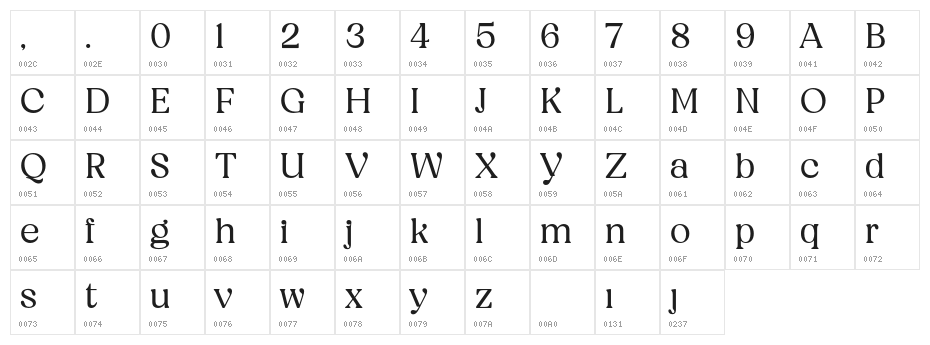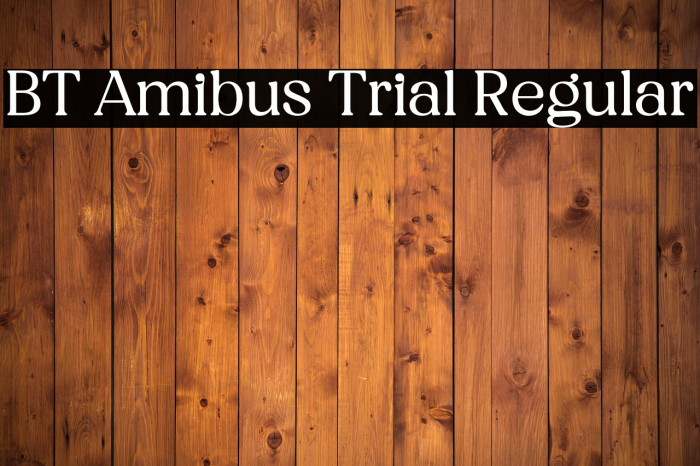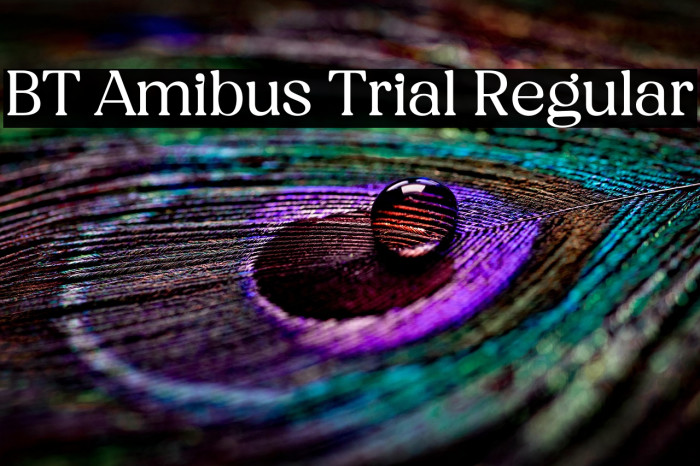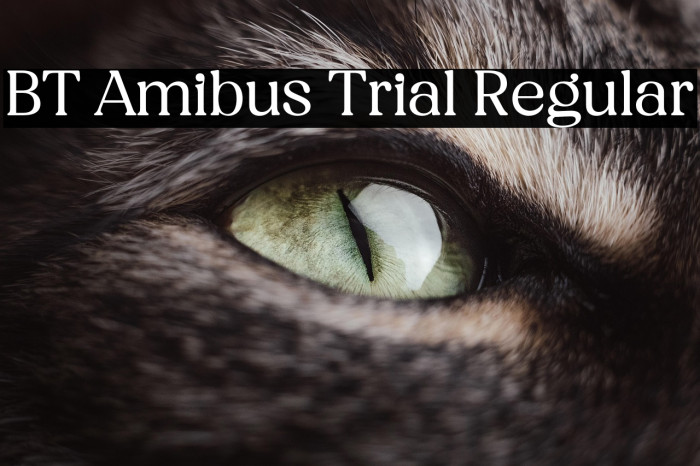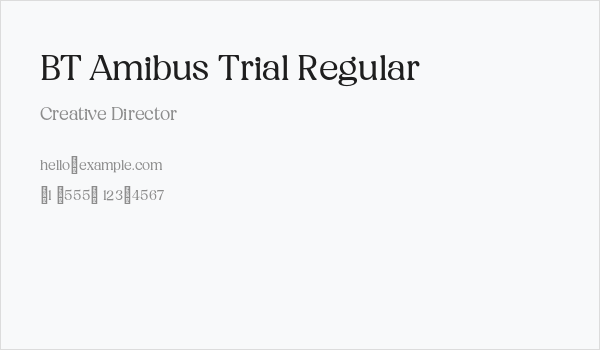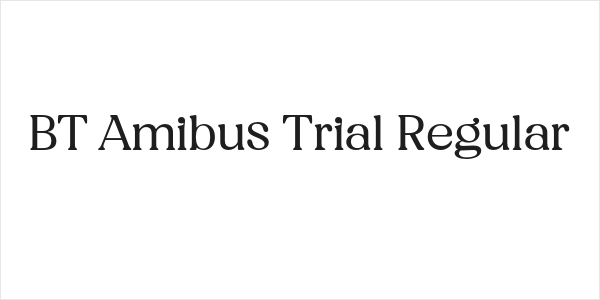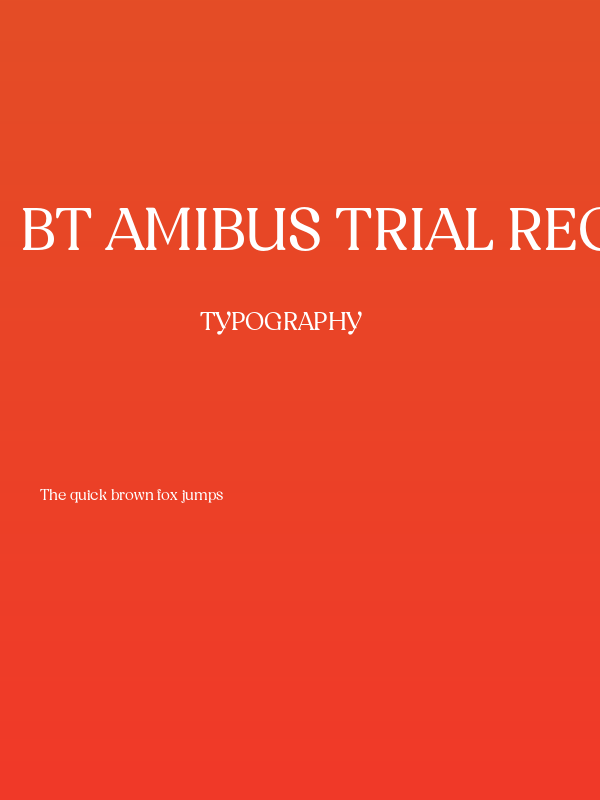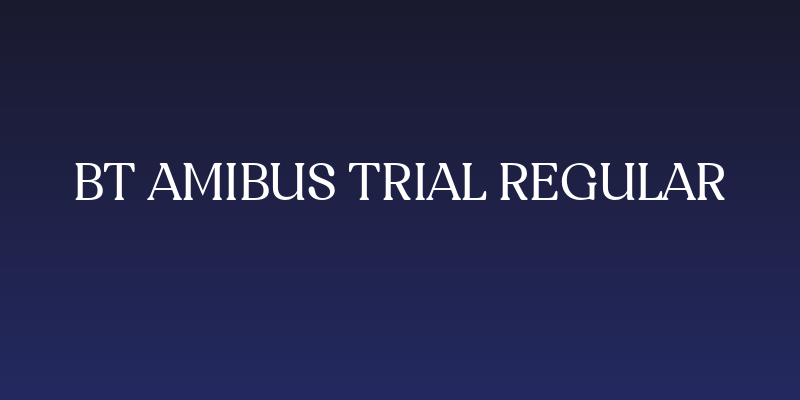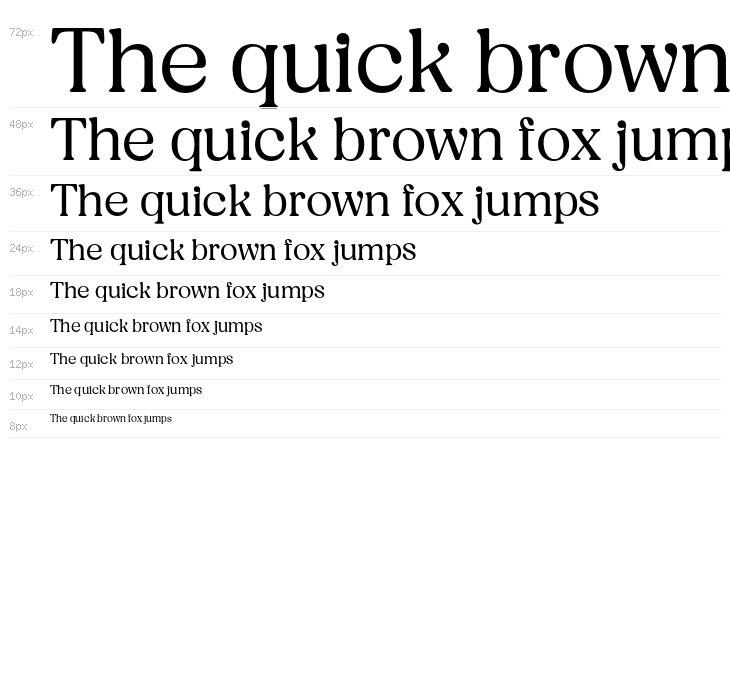
BT Amibus Trial Regular Font
BT Amibus Trial Regular Description
This font exhibits a classic serif style with a modern twist, characterized by its elegant and refined letterforms. The uppercase letters are bold and commanding, while the lowercase letters maintain a balanced and harmonious appearance. The numerals are clear and easy to read, making them suitable for various applications. The font's overall design is versatile, offering a timeless appeal that can enhance both traditional and contemporary projects.